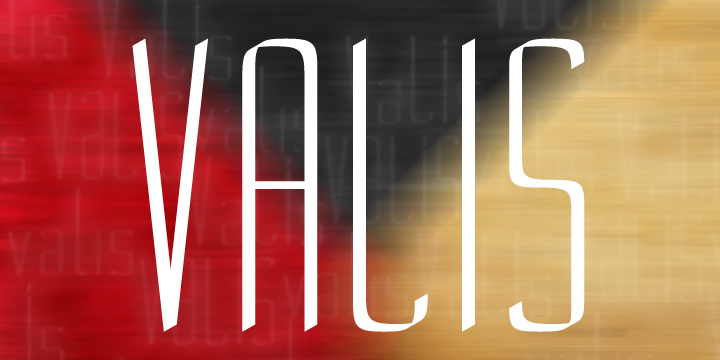
Indulge in the ethereal beauty of Valis Font, a sans serif marvel that will captivate your senses and elevate your designs.
Born from the artistry of AdultHumanType, Valis boasts a captivating allure that seamlessly complements a myriad of creative endeavors. Whether gracing the headlines of captivating articles or adorning the covers of alluring books, this font exudes an air of sophistication that will leave an unforgettable impression.
Step into a world where readability and aesthetics intertwine. Valis's well-balanced letterforms dance across the screen, inviting your audience to immerse themselves in your content. Its crisp lines and graceful curves create a visual harmony that will entrance your target market.
Embrace the versatility of Valis, a font that seamlessly adapts to your ever-evolving design needs. From bold and eye-catching logos to elegant invitations, this typographic masterpiece effortlessly enhances any project it graces. Let Valis become your artistic muse, guiding you towards captivating designs that speak volumes.